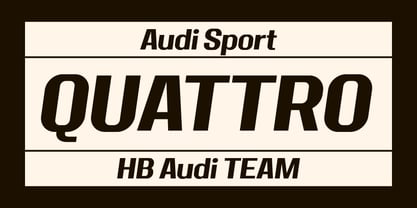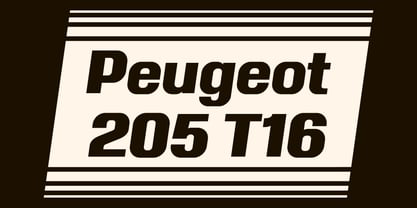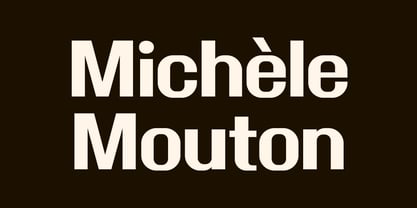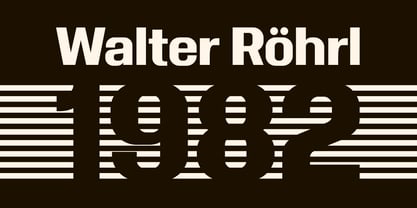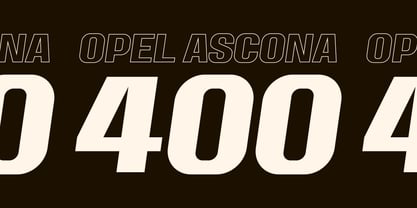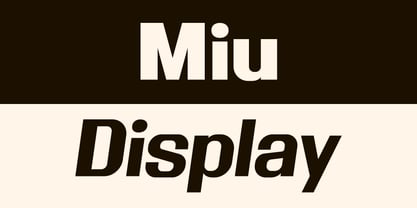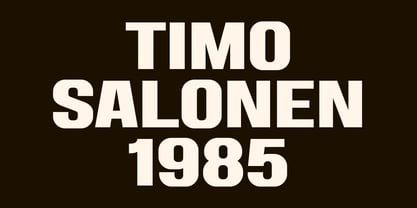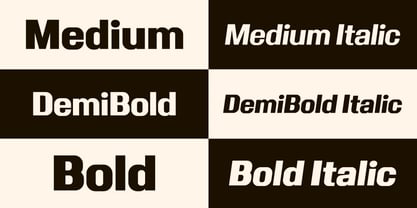
Miu Display
by Dan Choi
The Miu Display Font Family was designed by Dan Choi and published by Dan Choi. Miu Display contains 6 styles and family package options. More about this family
Miu Display was designed as a headline font family with a neutral voice, using geometric forms to create visual clarity. With three weights, it offers flexibility for headlines, branding and editorial design. Optimized for display use, it supports clear communication across print, digital and environmental media, including identity systems and signage.
Dan Choi is a graphic and type designer based in Vancouver, Canada. Working across a range of disciplines since 2014, he develops both retail and custom typefaces. His practice is particularly informed by systems, grids, and clear construction principles, exploring how these structured approaches can produce contemporary and distinctive letterforms.